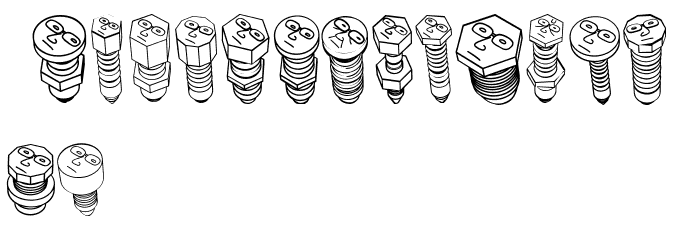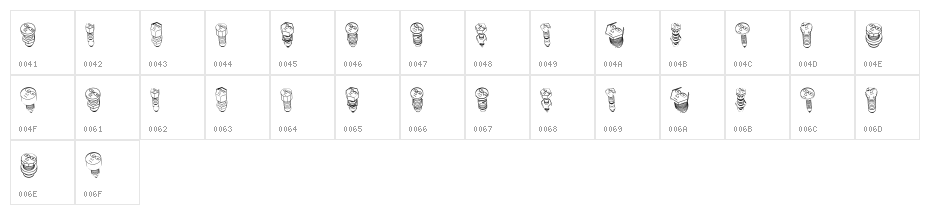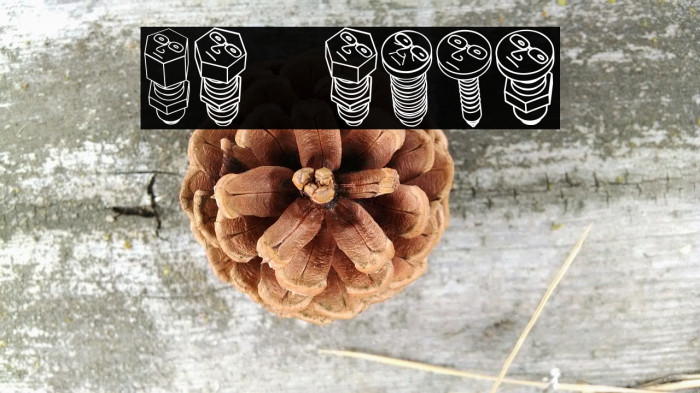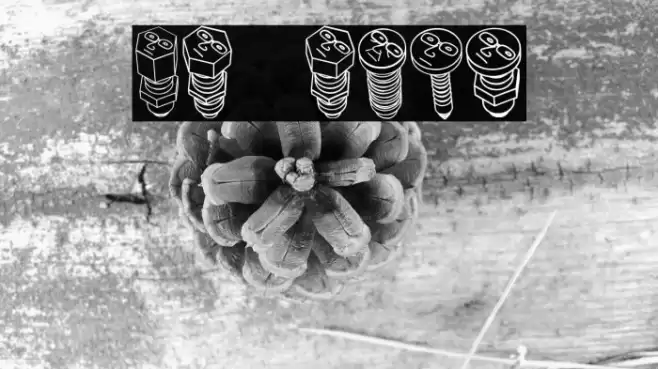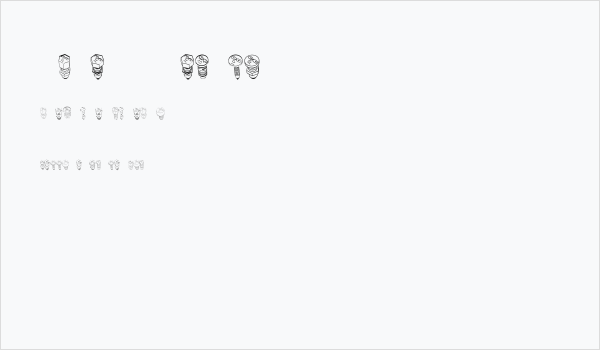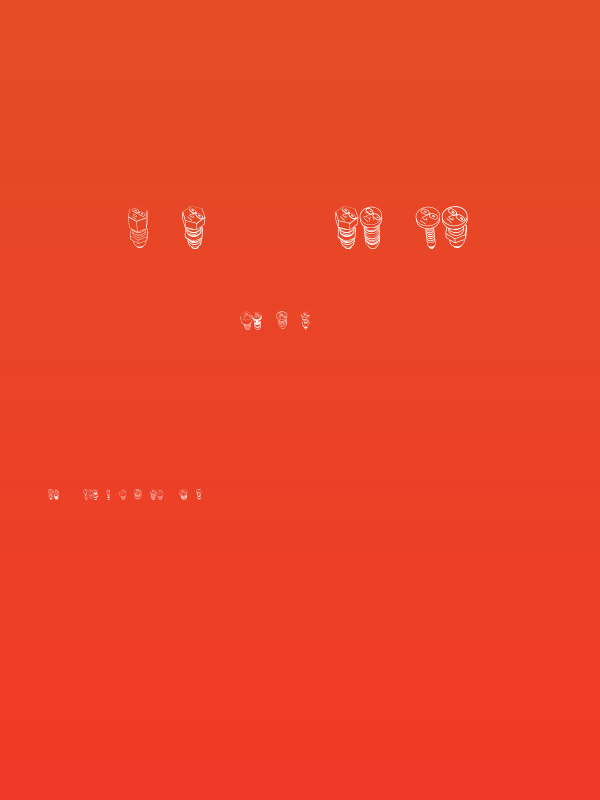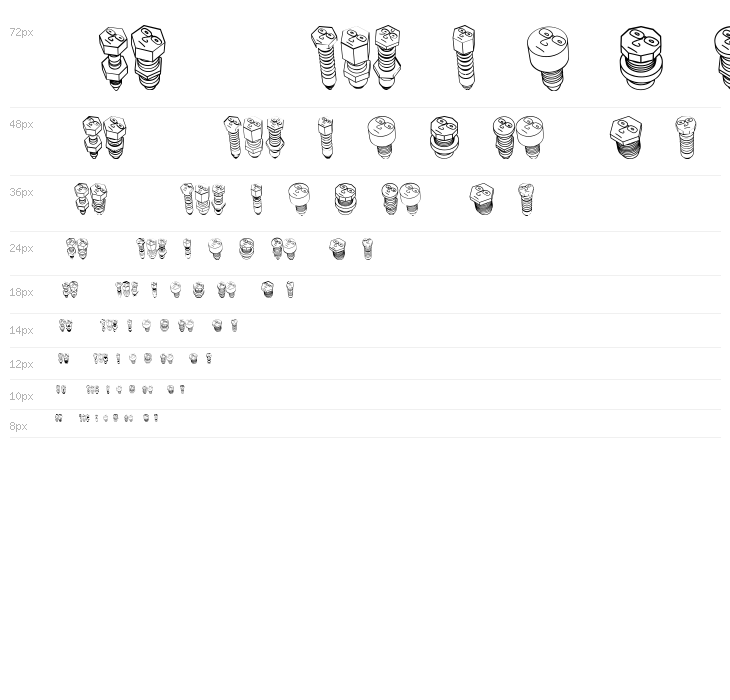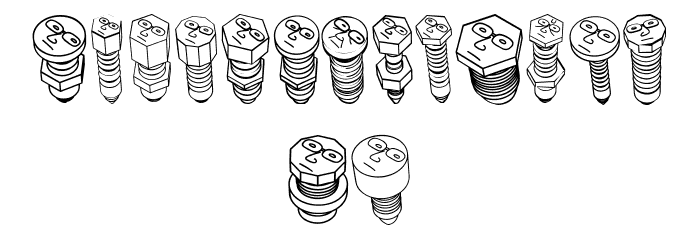
Screws Regular Font
Screws Regular Description
This unique font is designed with a playful and industrial aesthetic, where each character is represented by a screw with distinct head shapes and engravings. The characters are three-dimensional, giving a sense of depth and texture. The font combines elements of mechanical design with a whimsical twist, making it stand out as a decorative option. Each letter and number is crafted to resemble a different type of screw, with variations in the head shape, such as hexagonal, flat, and Phillips. The engravings on the screw heads form the characters, adding a layer of complexity and creativity. This font is ideal for projects that require a bold and unconventional look, capturing attention with its intricate design and thematic consistency.
Proposed ProjectsIdeal for industrial-themed posters, creative branding, DIY project labels, and educational materials about tools.